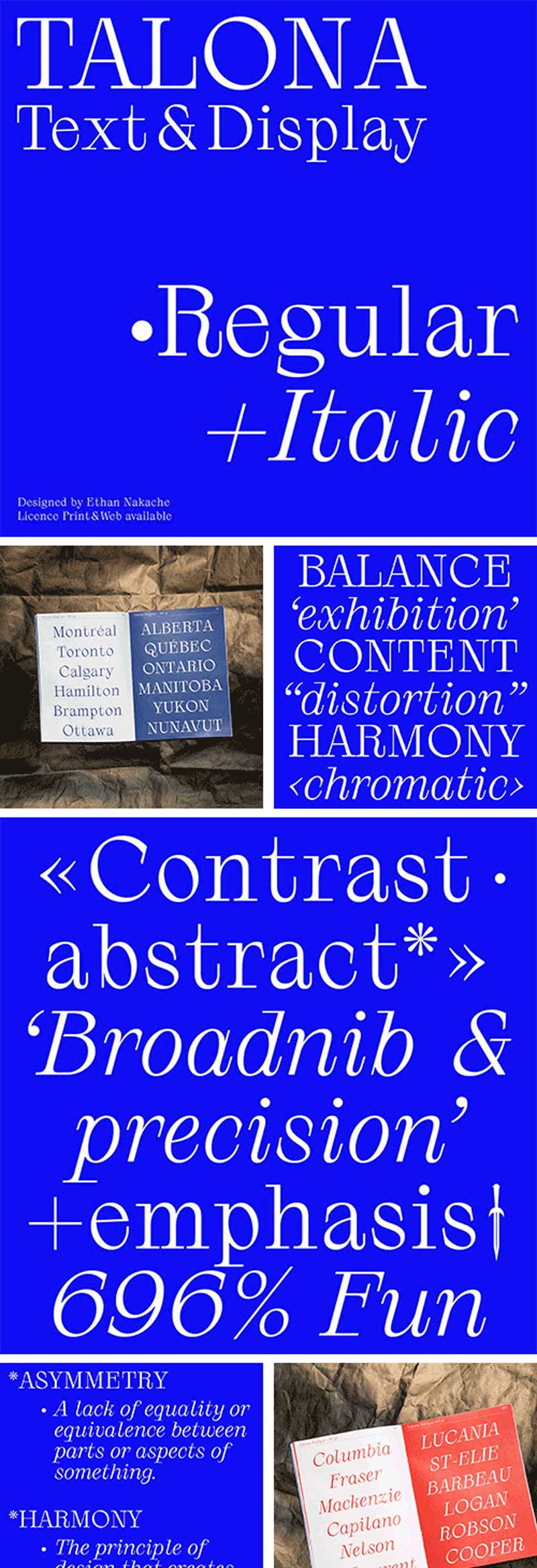
Talona Typeface
Talona was constructed intuitively through applying oblique contrast axis and long serifs to classic Didot forms, using a broad nib pen. Combining traditional and modern influences, Talona is a unique typeface filled with sharp, asymmetrical serifs and a fresh, organic feel.
Mainly designed for titling, this typeface also works well in mid-sized body text and will bring vibrant, tactile finish to headlines. If you’re looking for a typeface which maintains a classic elegance alongside some sharp contemporary quirks, Talona is a stunning choice.